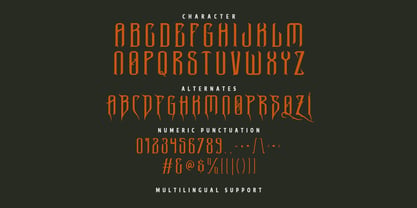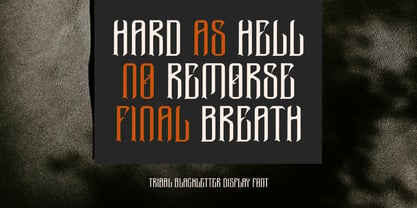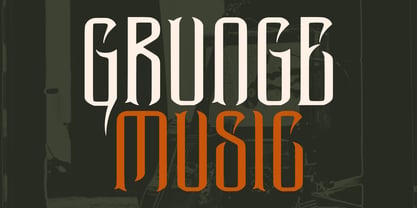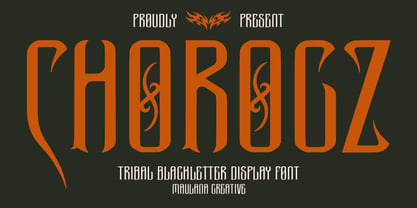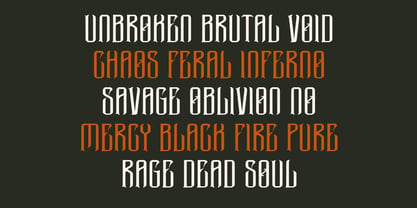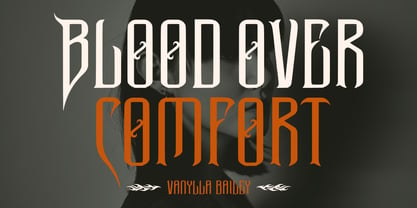
MC Chorocz
by Maulana Creative
The MC Chorocz Font Family was designed by Gilang Maulana and published by Maulana Creative. MC Chorocz contains 1 styles. More about this family
Chorocz is a fierce and commanding display font that bridges the gap between traditional Gothic blackletter and modern tribal aesthetics. Featuring razor sharp edges, elongated strokes, and intricate decorative alternates, this typeface captures a raw, aggressive energy. It is perfectly suited for projects that require a hardcore or dark edge, such as metal band logos, apparel, tattoo inspired branding, horror movie, and grunge style editorial layouts. With its unique character alternates and multilingual support, Chorocz provides the versatility needed to create truly custom, hell born typography.
Designers: Gilang Maulana
Foundry: Maulana Creative